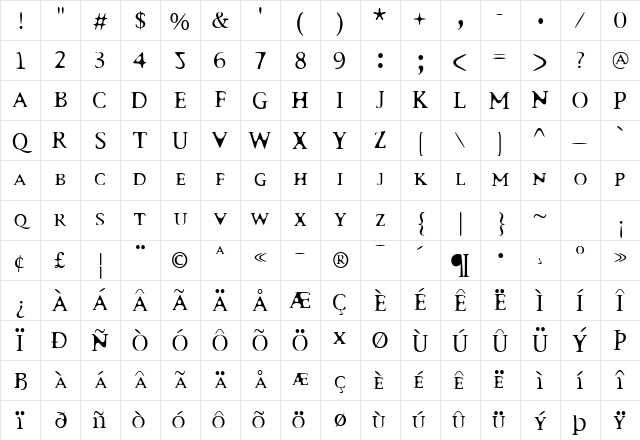
Surrogate SmallCaps Free Font
Surrogate SmallCaps
Style: SmallCaps
Complete Surrogate SmallCaps glyph index. Displaying only characters natively supported by Surrogate SmallCaps font.
Design Context for Surrogate
Surrogate is a composed and adaptable typeface that performs quietly and consistently across a wide range of design contexts.